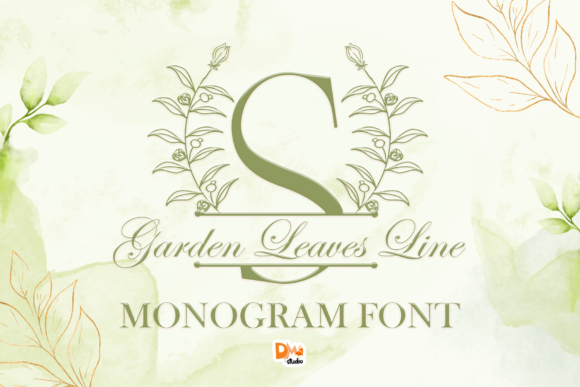
Venture into the captivating world of Garden Leaves Line Monogram Font, a decorative font that will transform your designs with a touch of elegance and charm. This exquisite font family is meticulously crafted to meet the needs of those seeking a font that exudes romance and sophistication.
With Garden Leaves Line Monogram, your wedding invitations, love letters, and design projects will acquire a distinctive and enchanting aura. Imagine your words flowing gracefully across the page, leaving a trail of beauty and inspiration. Let your creativity flourish as you explore the endless possibilities that this font offers.
The delicate lines and intricate details of Garden Leaves Line Monogram create a visual symphony that captivates and engages. Each character is adorned with grace and finesse, evoking a sense of timeless elegance. Allow your designs to blossom into works of art as you incorporate this font into your projects.
More than just a font, Garden Leaves Line Monogram is an expression of love, joy, and creativity. Its soft edges and flowing curves inspire a sense of tranquility, while its versatility allows you to create a wide range of designs that reflect your unique style.